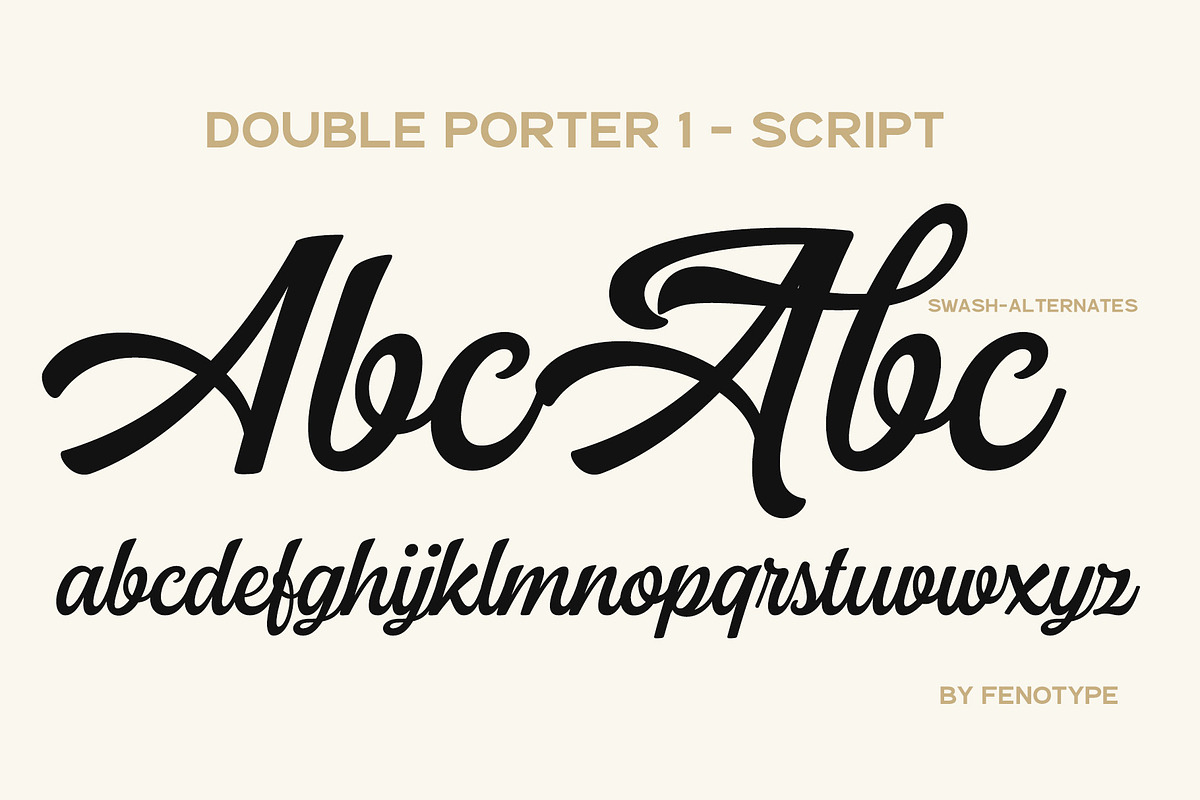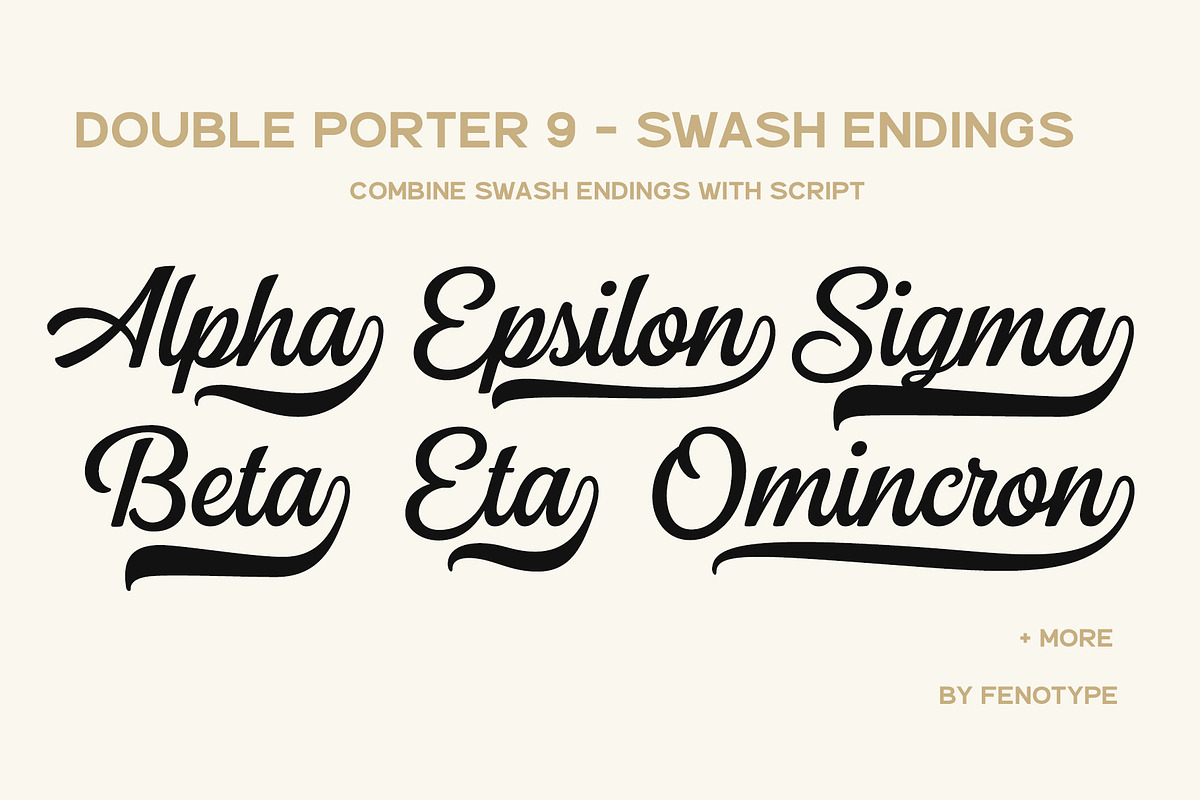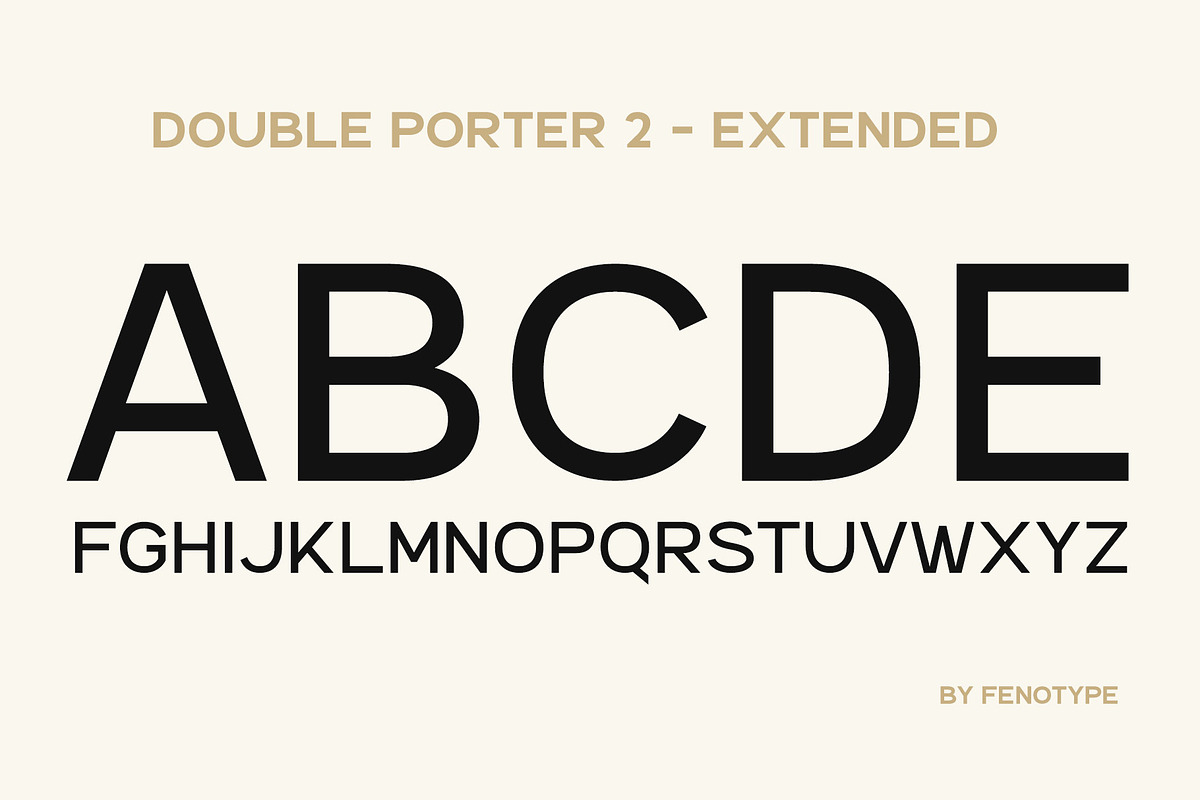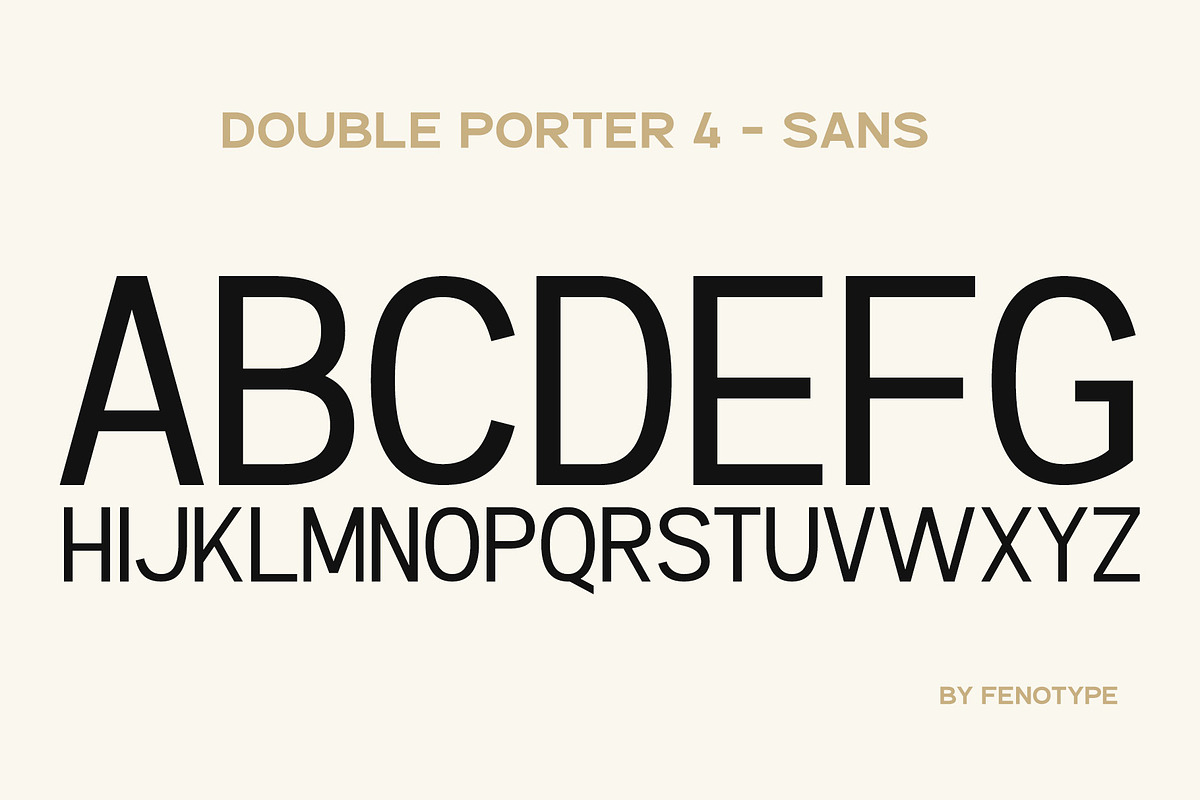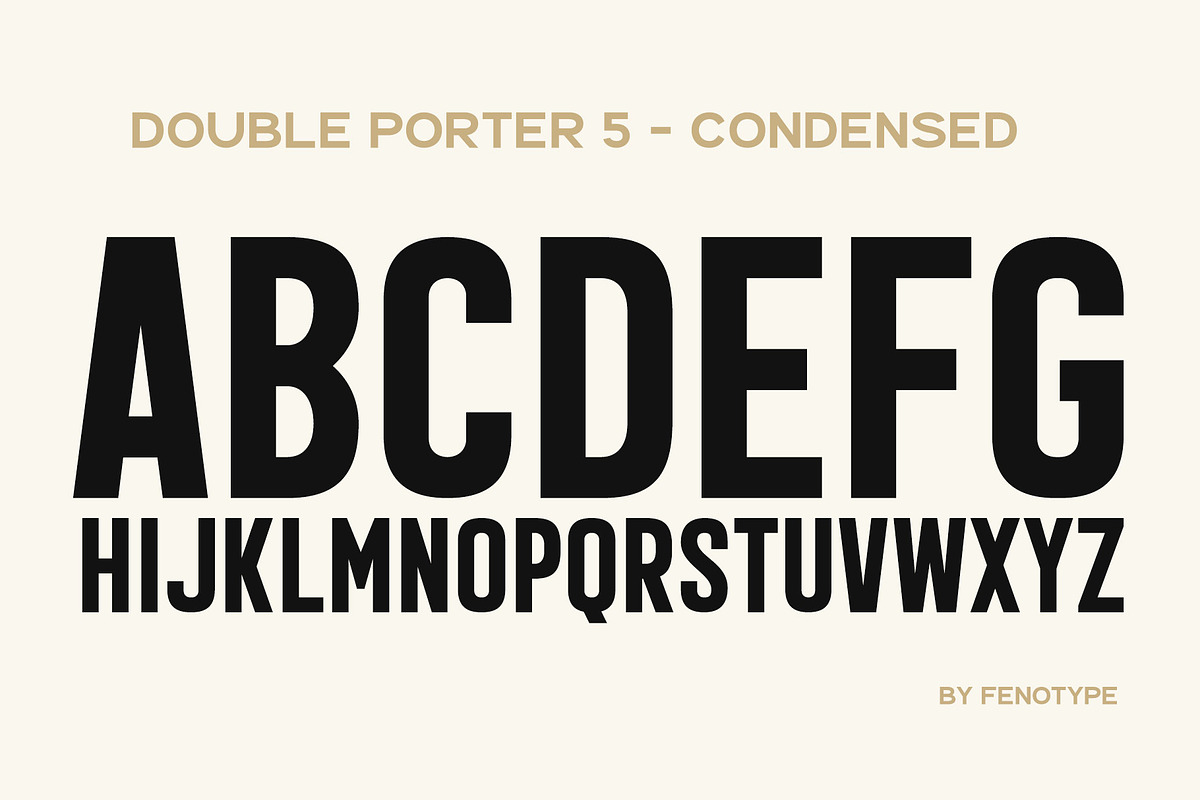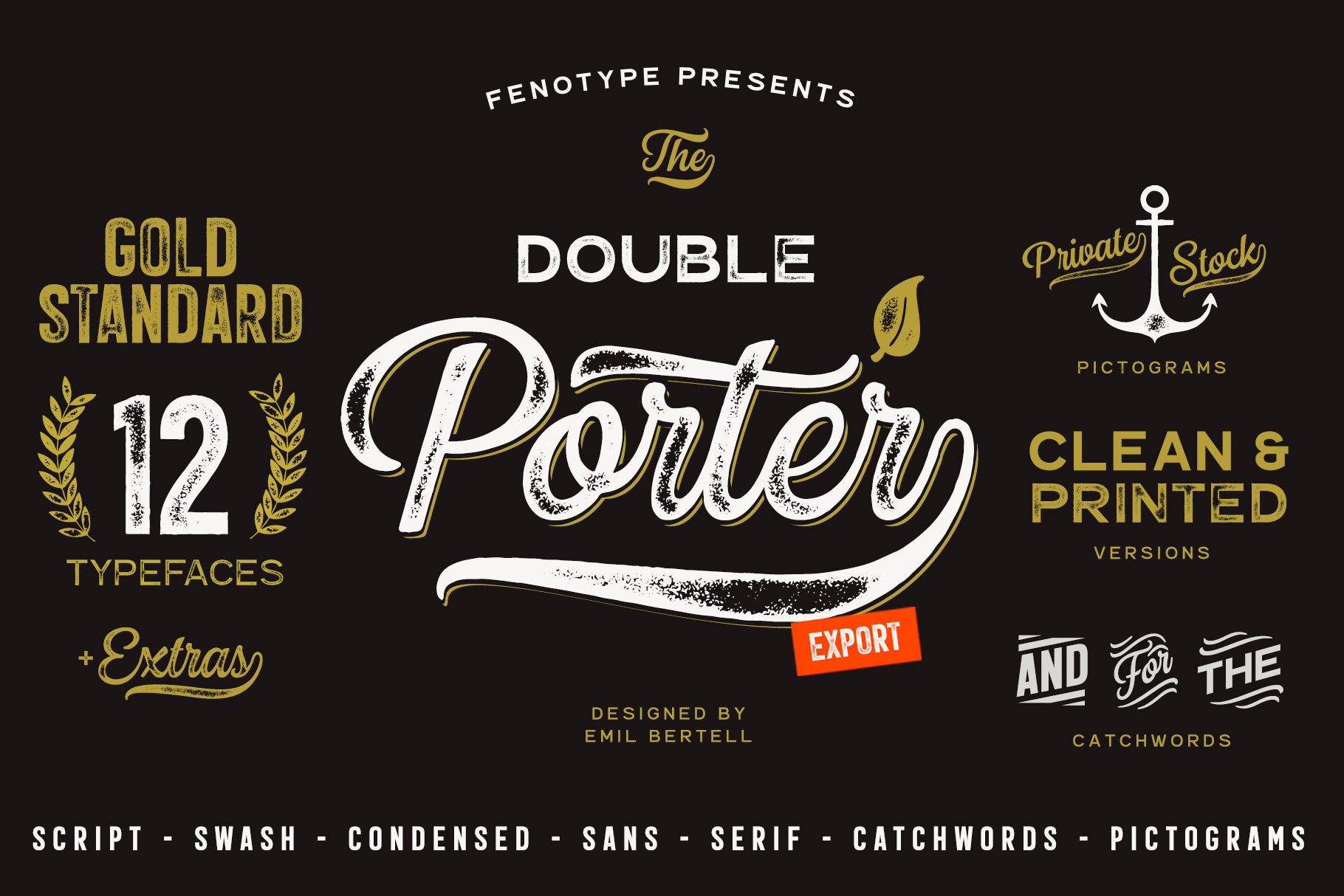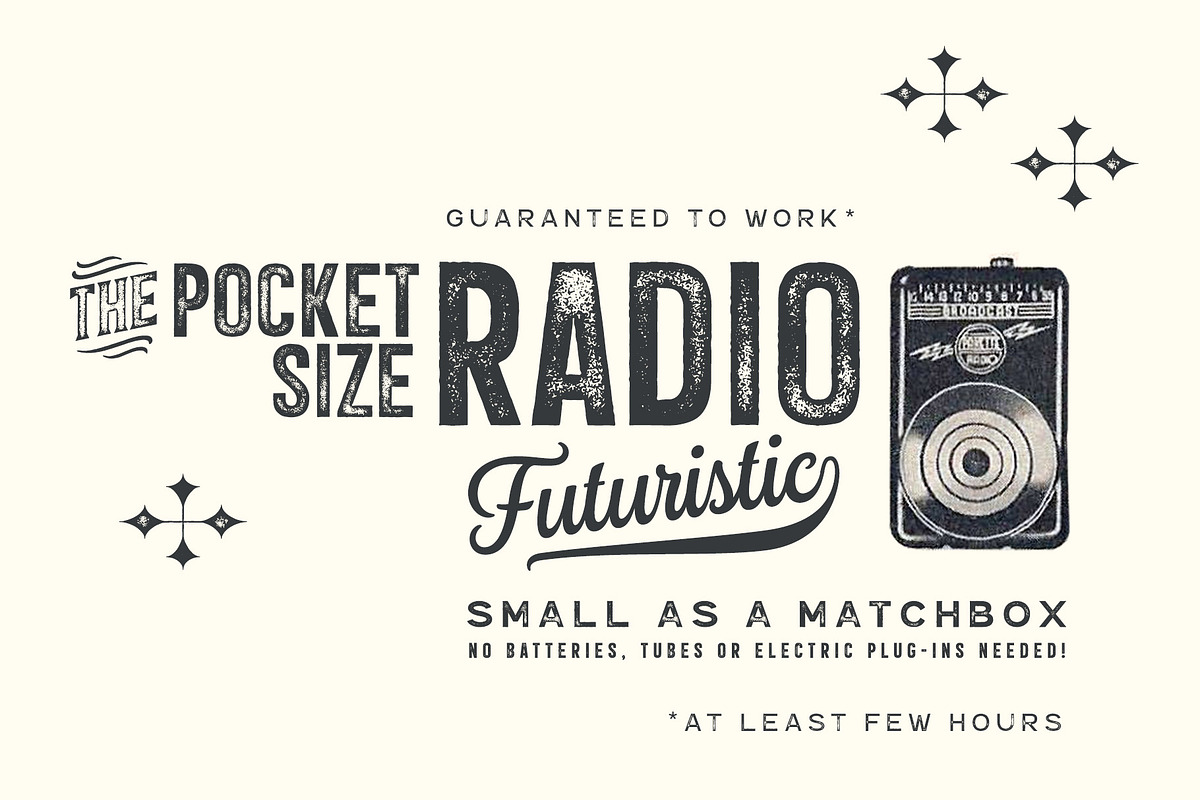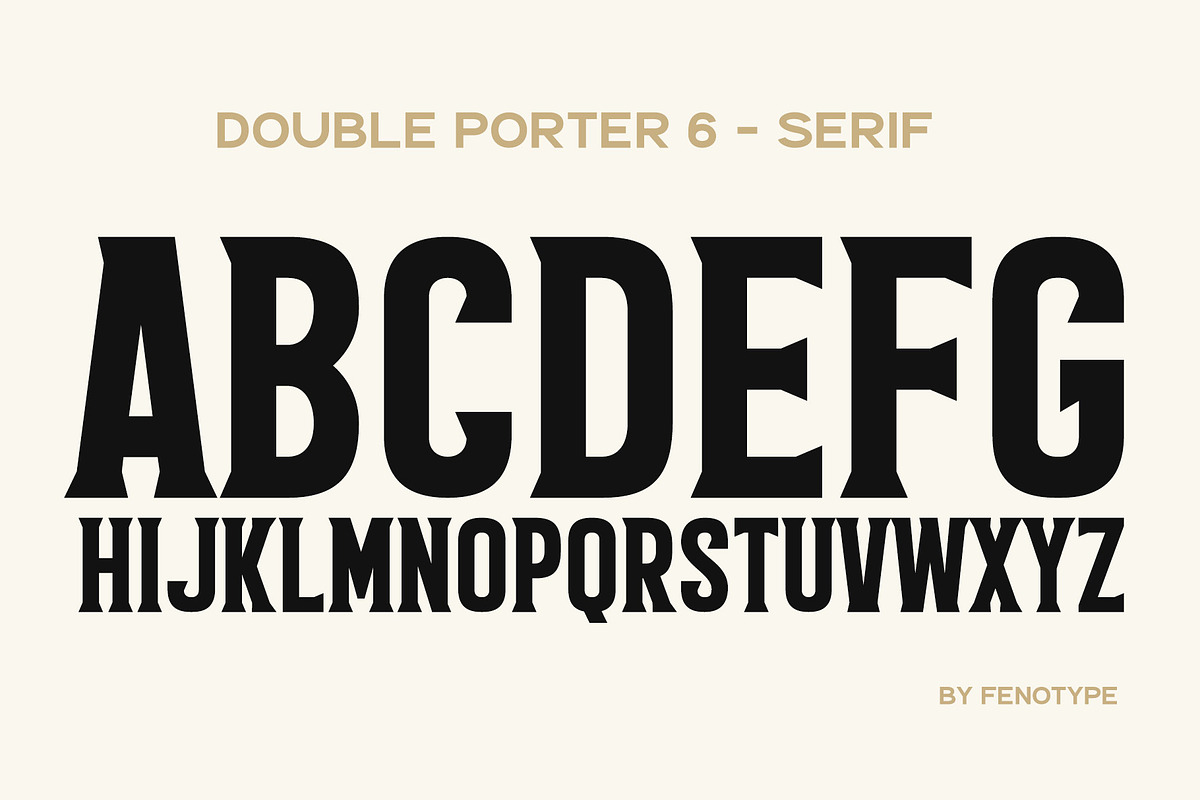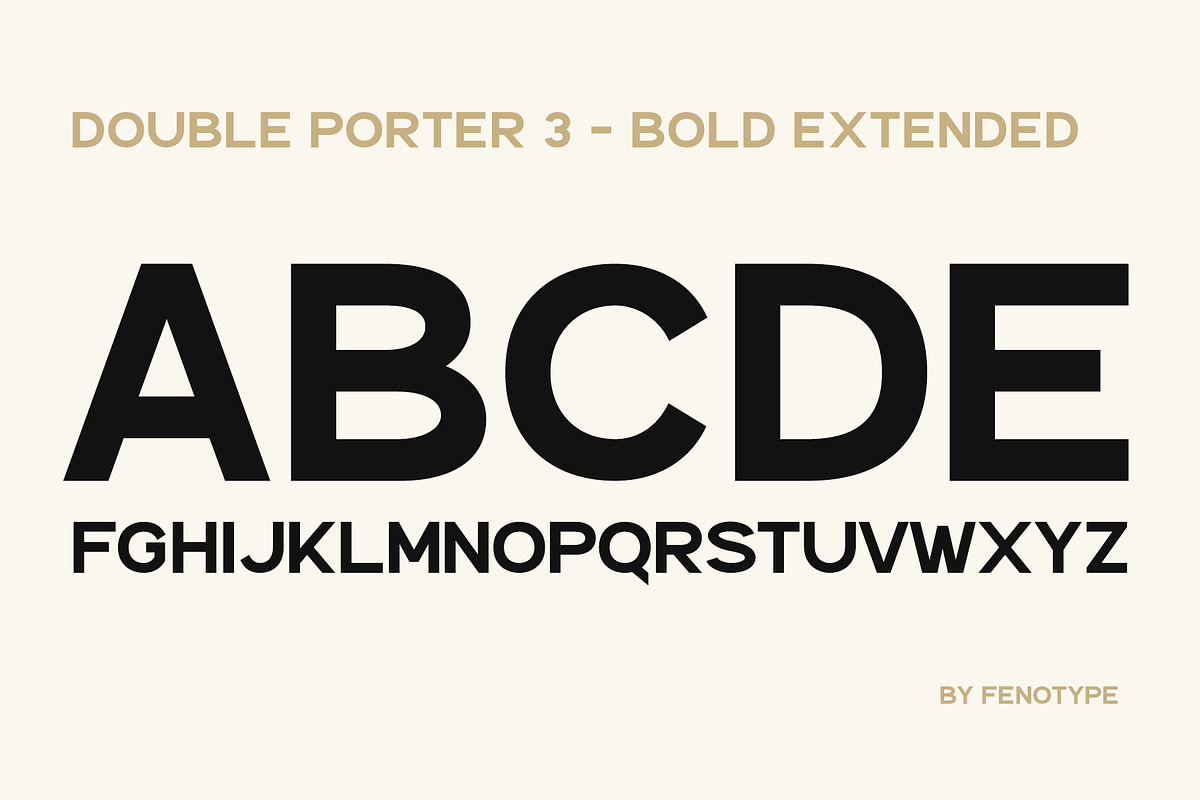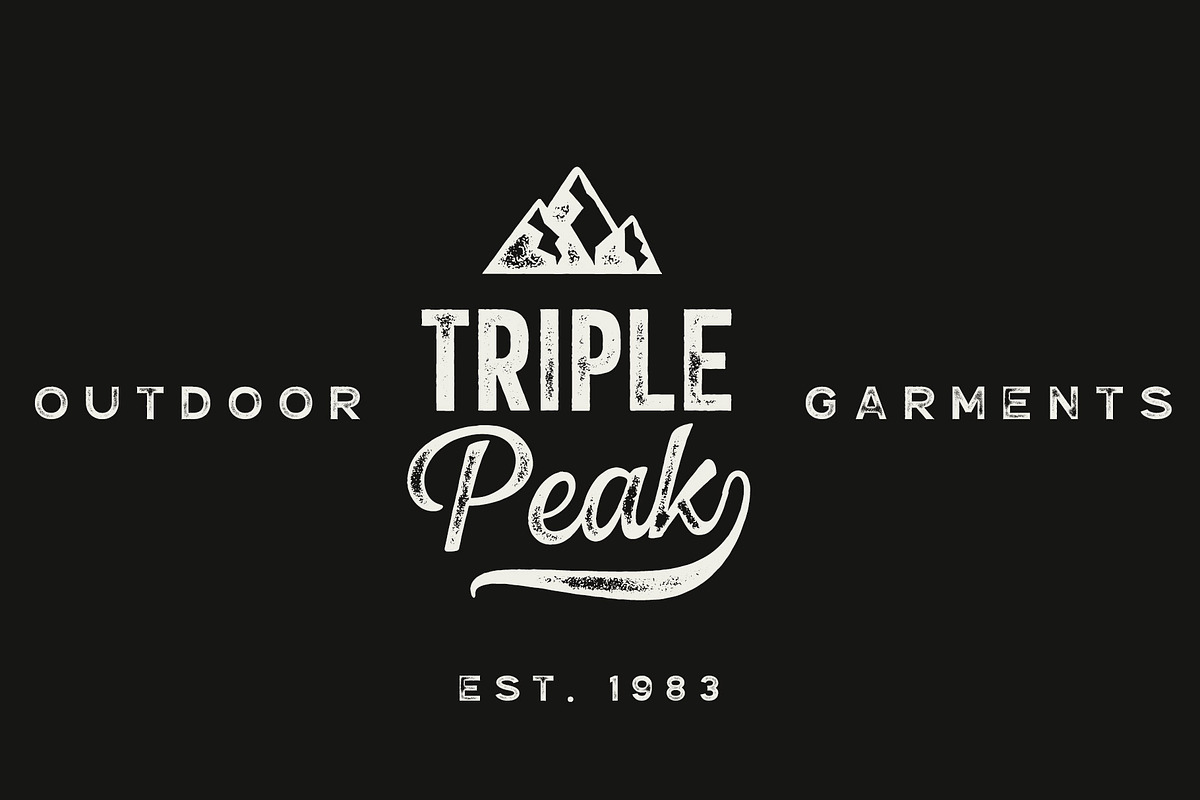
Double Porter 12 FONTS + EXTRAS
Double Porter - an elegant font collection.
Double Porter includes following: • 6 fonts - a clean and textured version of each. • Ornaments • Catchwords • Ending swash ornaments for the script
Double Porter is a clean cut script font with five strong sans fonts. All the fonts are designed to work nice together. Here’s a short introduction to the fonts:
- Double Porter 1 -Clean connected script with Swash Alternates for caps and lowercase letters with ascender or descender. The Script also has Contextual Alternates that add variation & make the flow smooth. Contextual Alternates are automatically on.
- Double Porter 2 -Wide Sans Serif font.
- Double Porter 3 -Bold version of Double Porter 2
- Double Porter 4 -Semi condensed Sans Serif
- Double Porter 5 -Condensed Bold Sans Serif
- Double Porter 6 -Serif version of Double Porter 5
- Double Porter 7 -Set of 60 icons and ornaments
- Double Porter 8 -Set of 68 Catchwords
- Double Porter 9 -Set of 62 Ending Swashes and Strokes designed to go with Double Porter 1 - the script.
In addition there is a “Printed” version of every Double Porter font. Printed versions are named Double Porter P x. Printed versions are exactly the same but the shapes have rugged outlines and a worn-out texture. Double Porter has wide language support including West European, Central European, Baltic, Turkish and Romanian character sets.